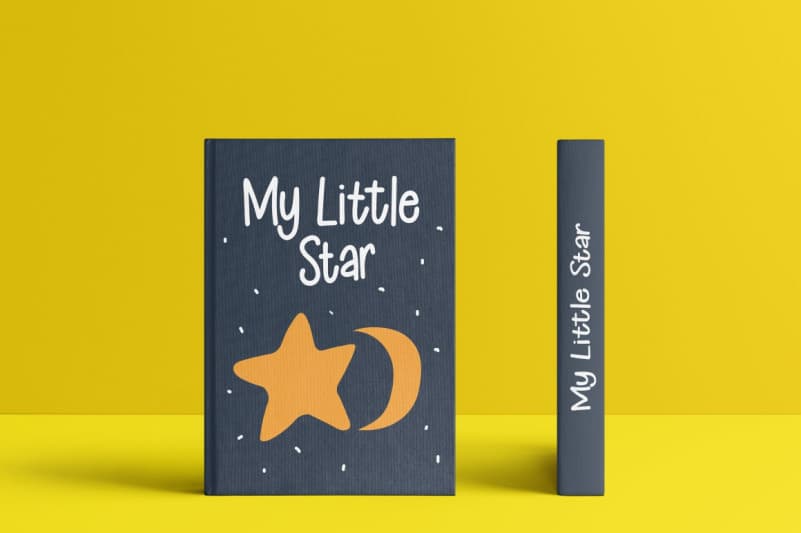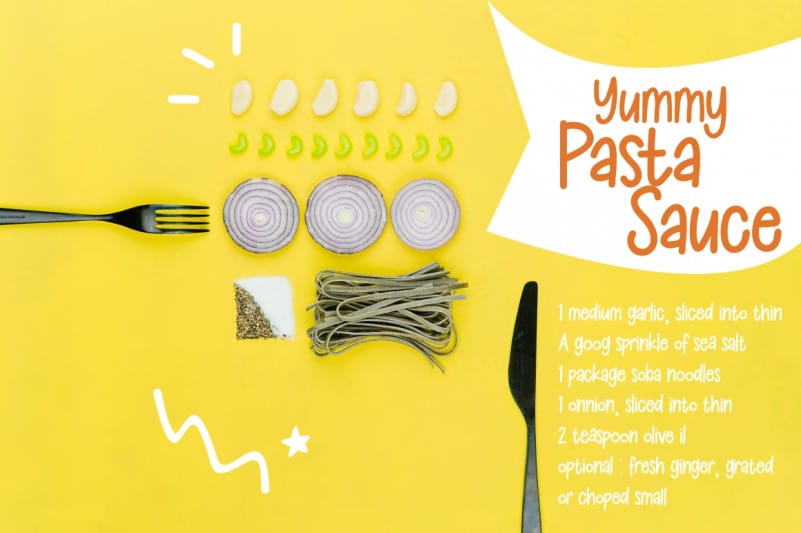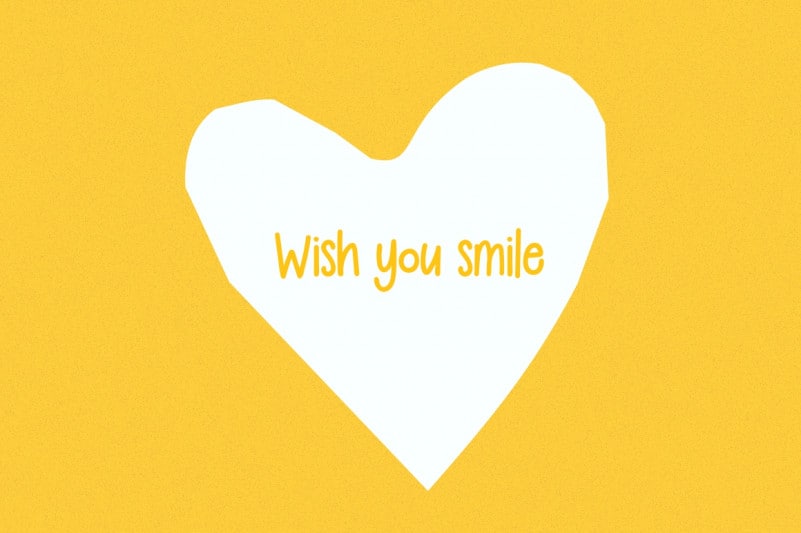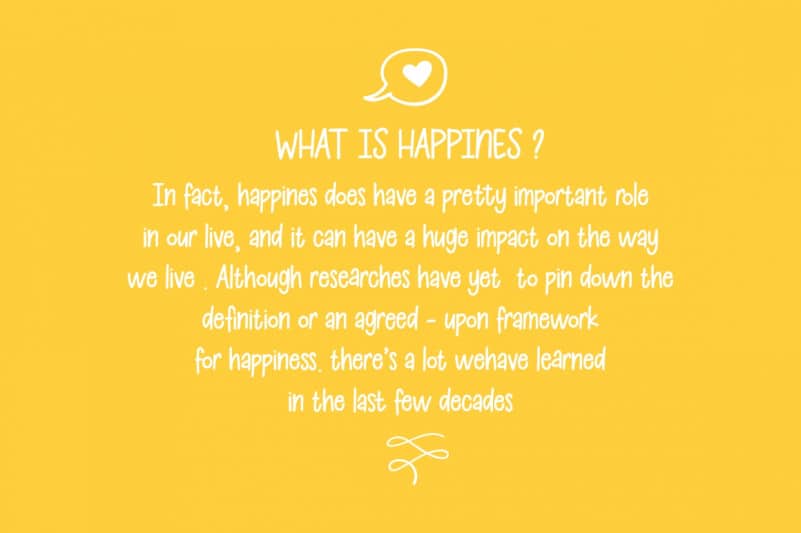
Kids Note – Playful Font is a cute and fun display font. It embodies playfulness and authenticity and is the perfect choice for any children activity or school project. Add this chunky lettered font to your designs and notice how it makes them come alive!